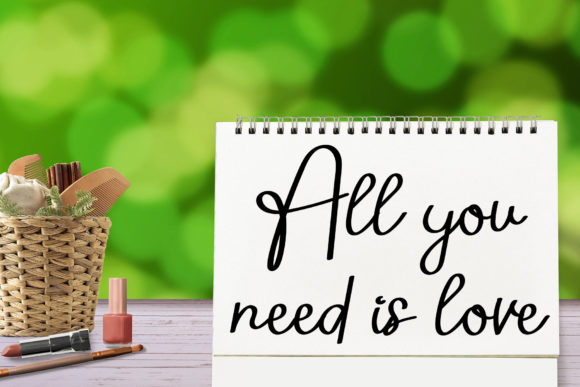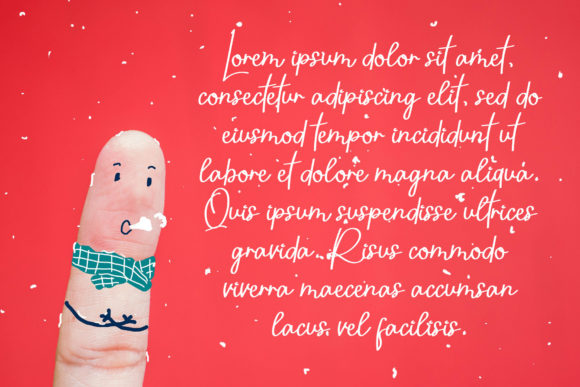
Santa Christmas Font
db-ku.com - Script & Handwritten -- Santa Christmas is a unique and elegant script font specially designed just for you. This font is made with a professional hand touch and is perfect for your work projects, from greeting cards to wedding invitation cards, birthdays, and all types of parties. This font is also suitable for your creative ideas related to school assignments or other important events. Apply this font with your creative ideas, and make them look better!